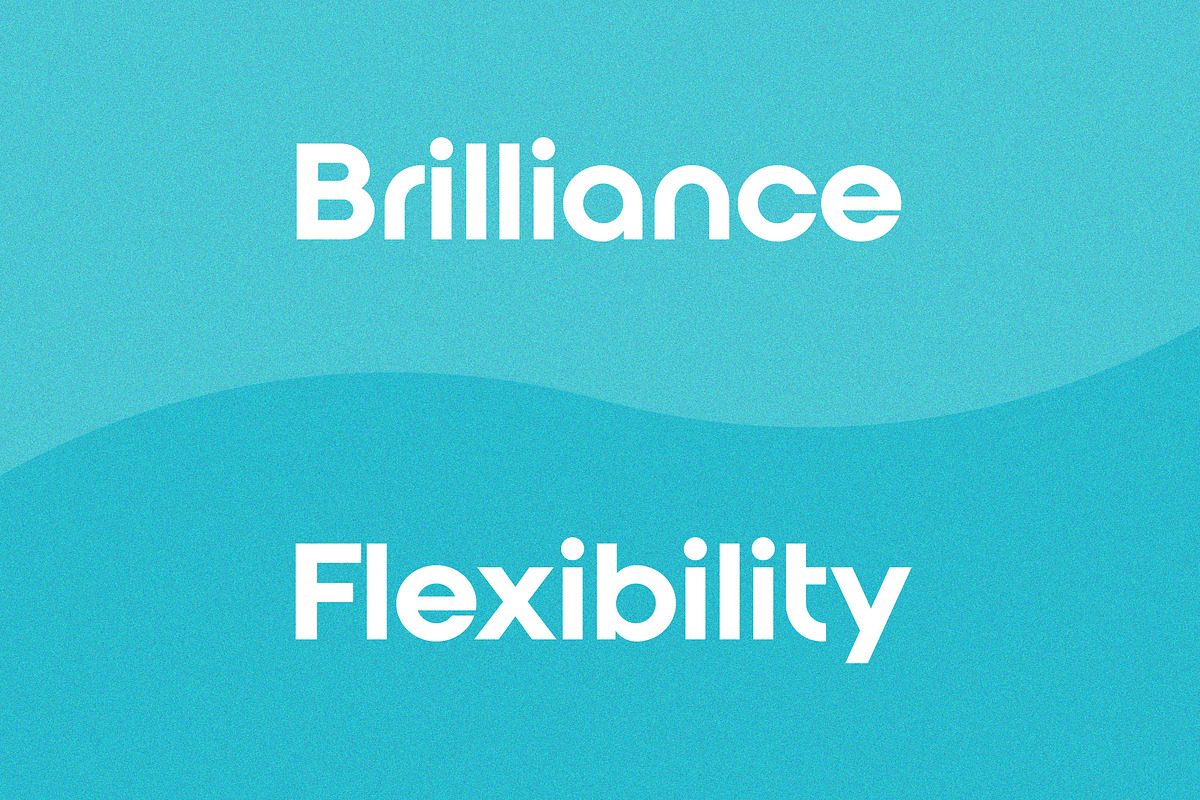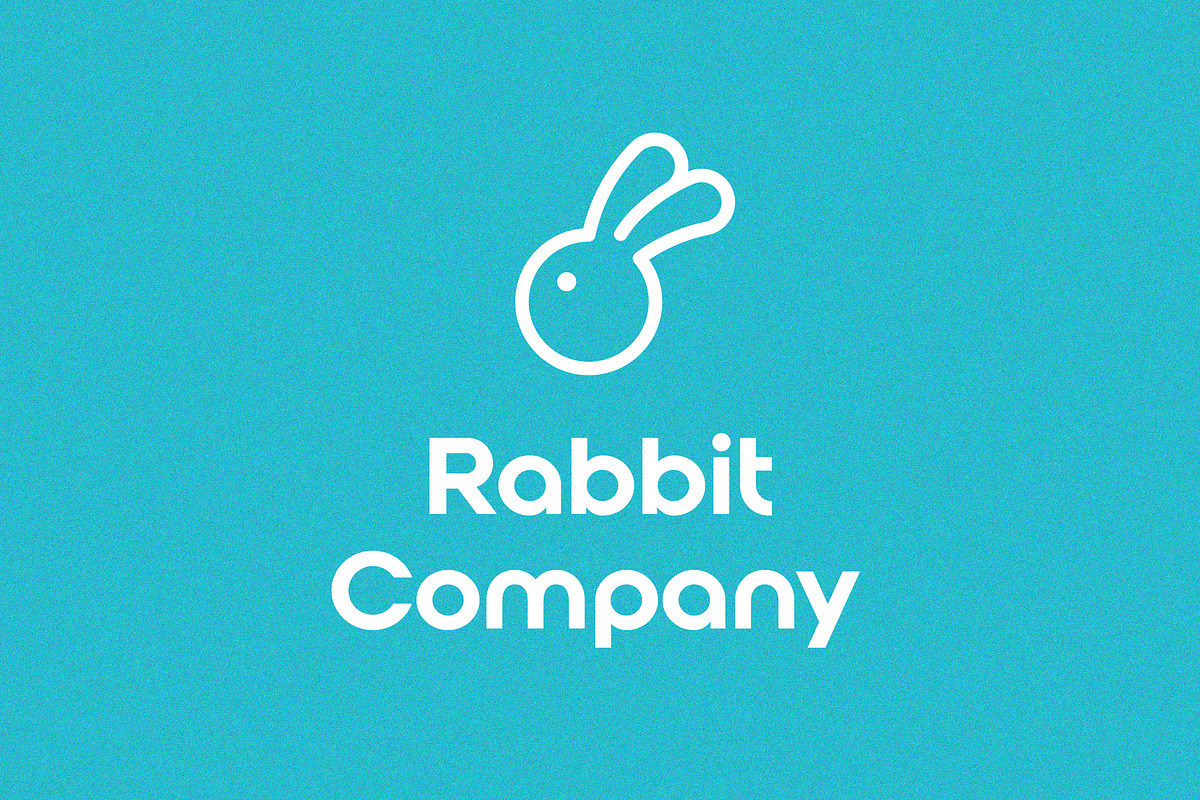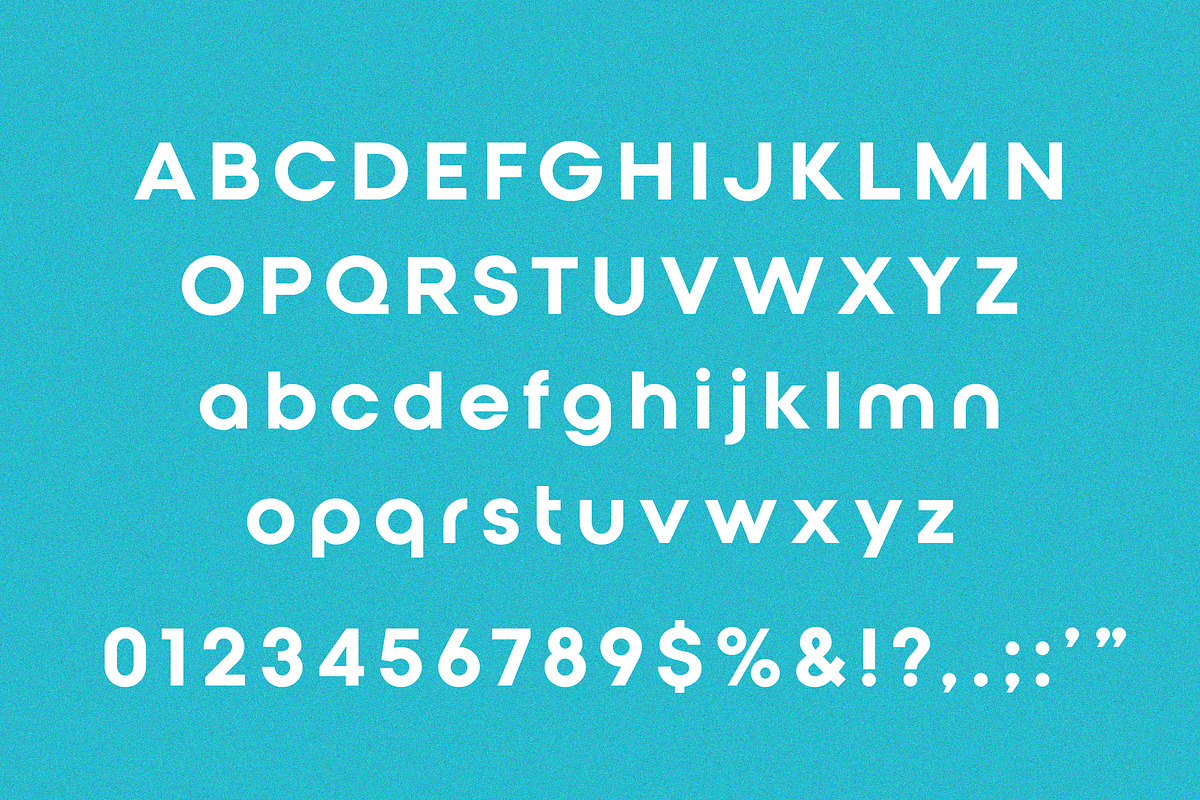
Qualy is a special font for your logo & branding. Every character is designed for a good logo, so not suitable for a long text. You can easily make & use your quality logo with a Desktop License.
Qualy Logo Font